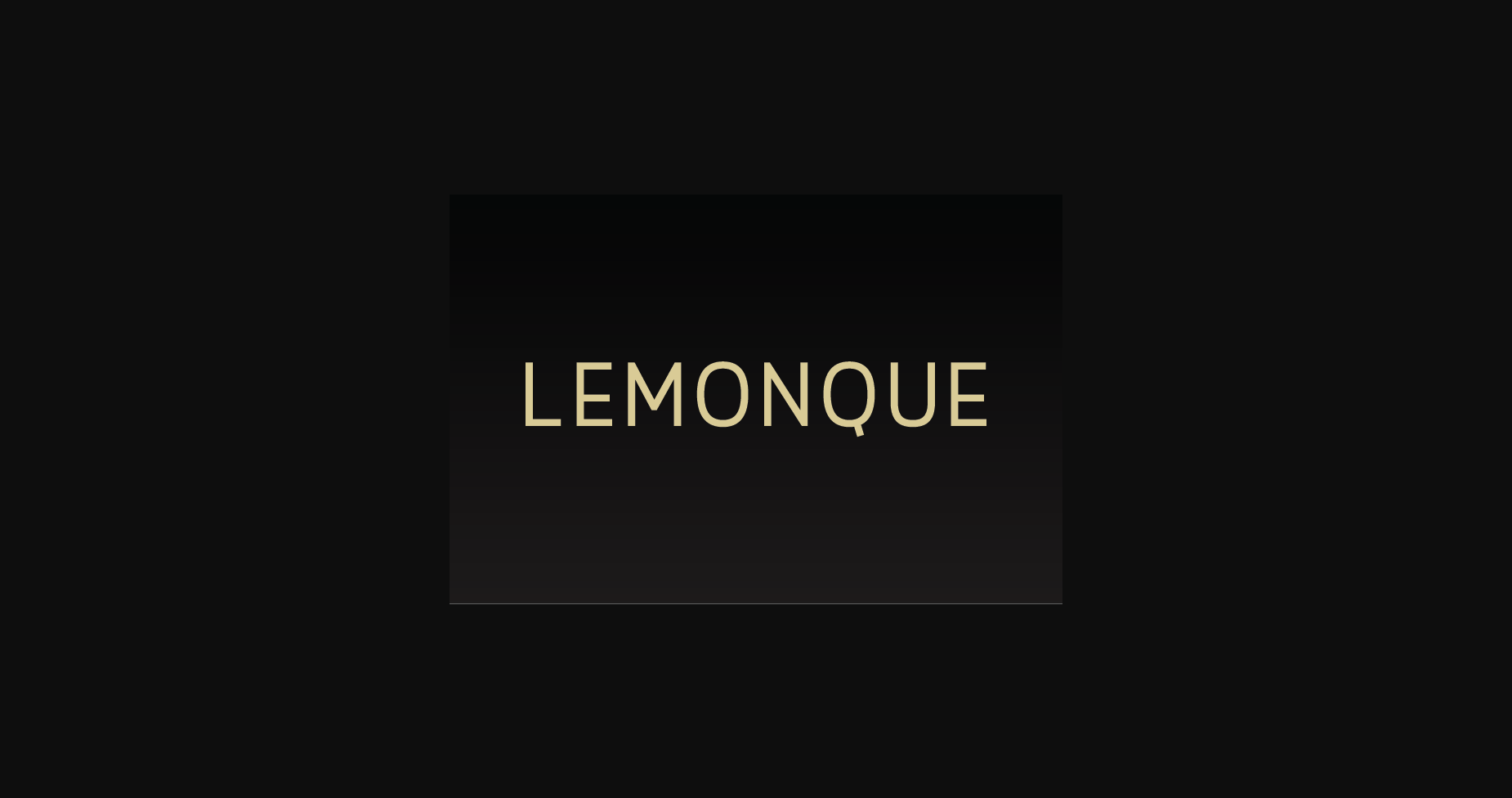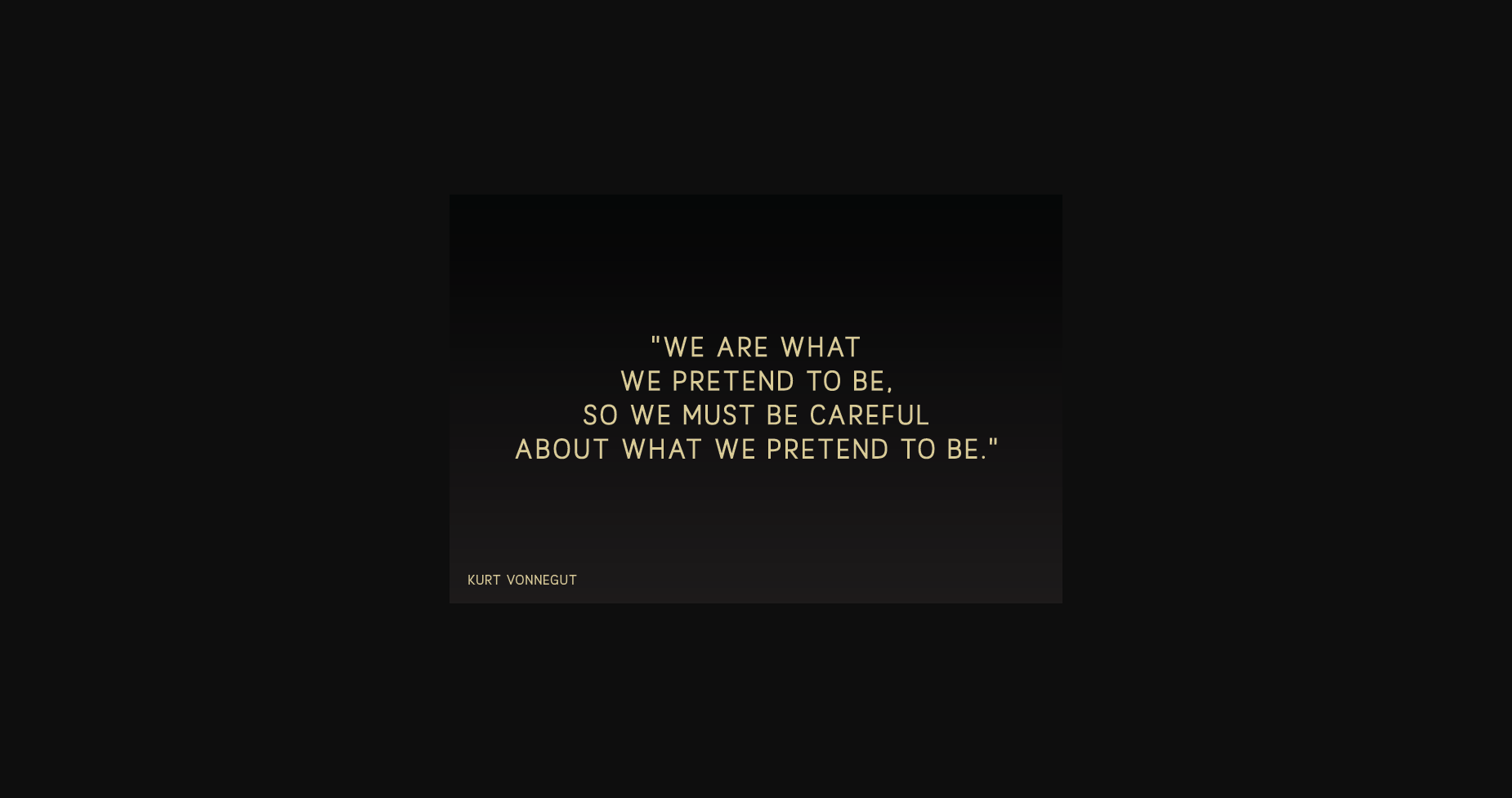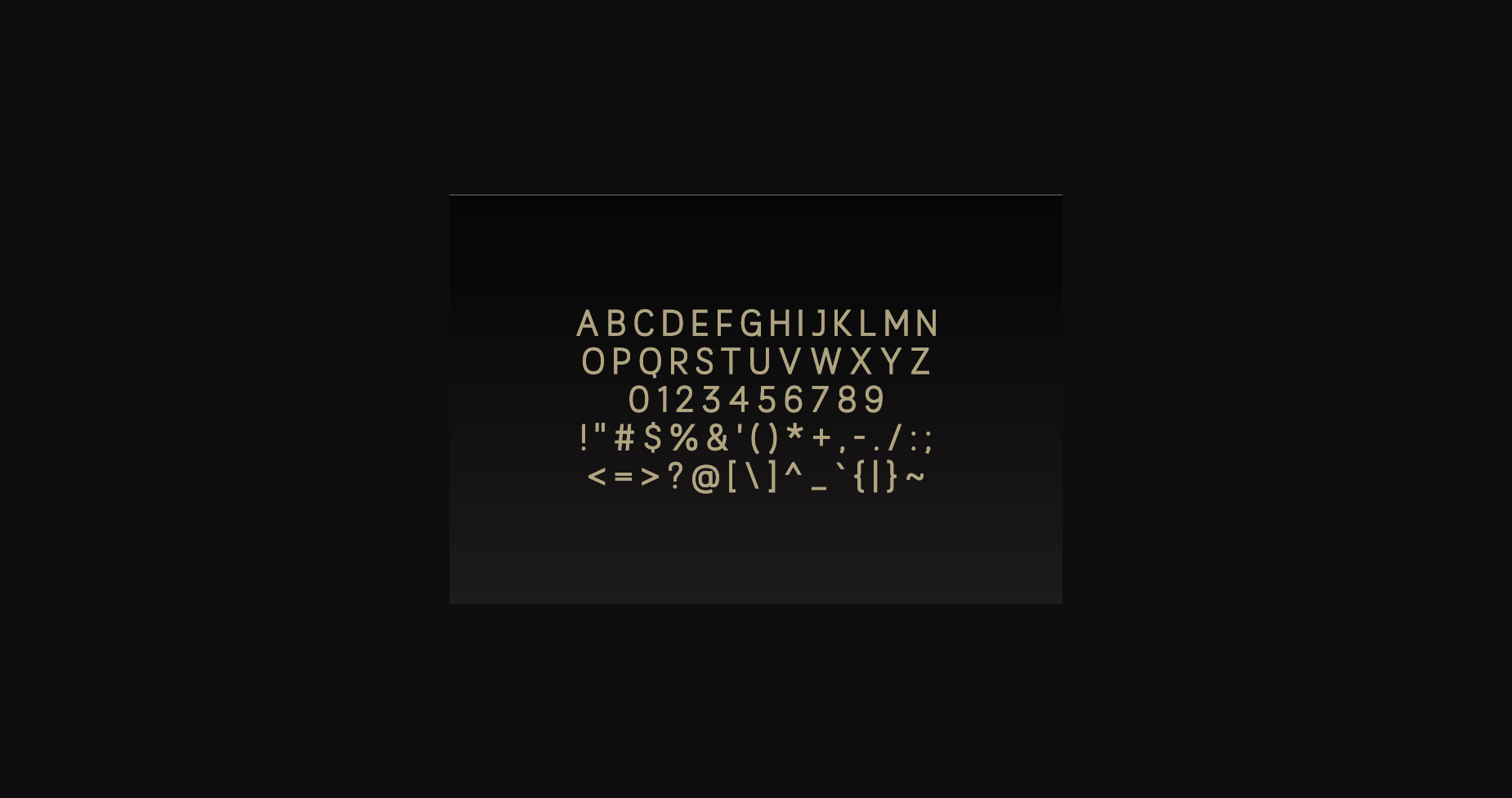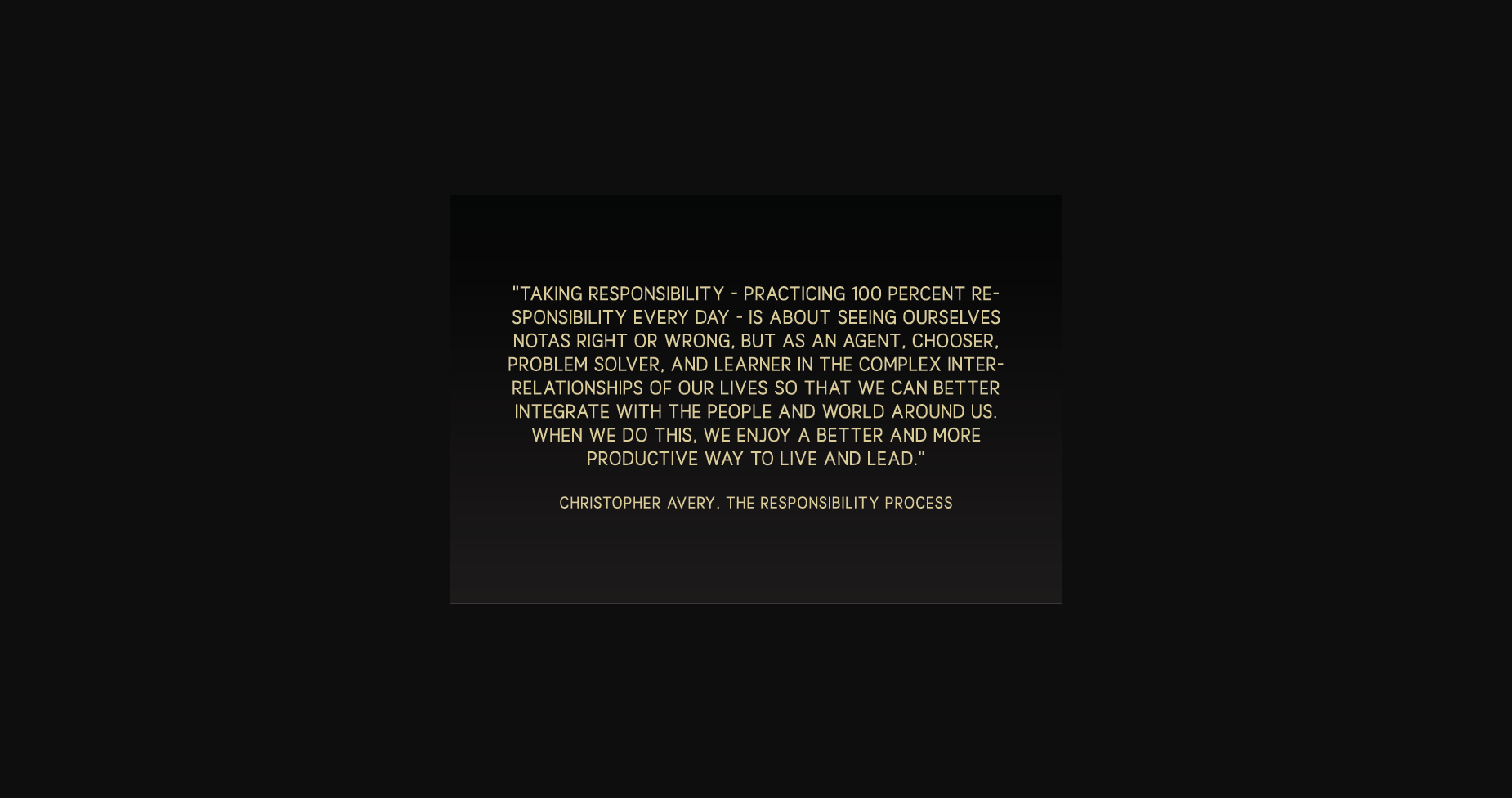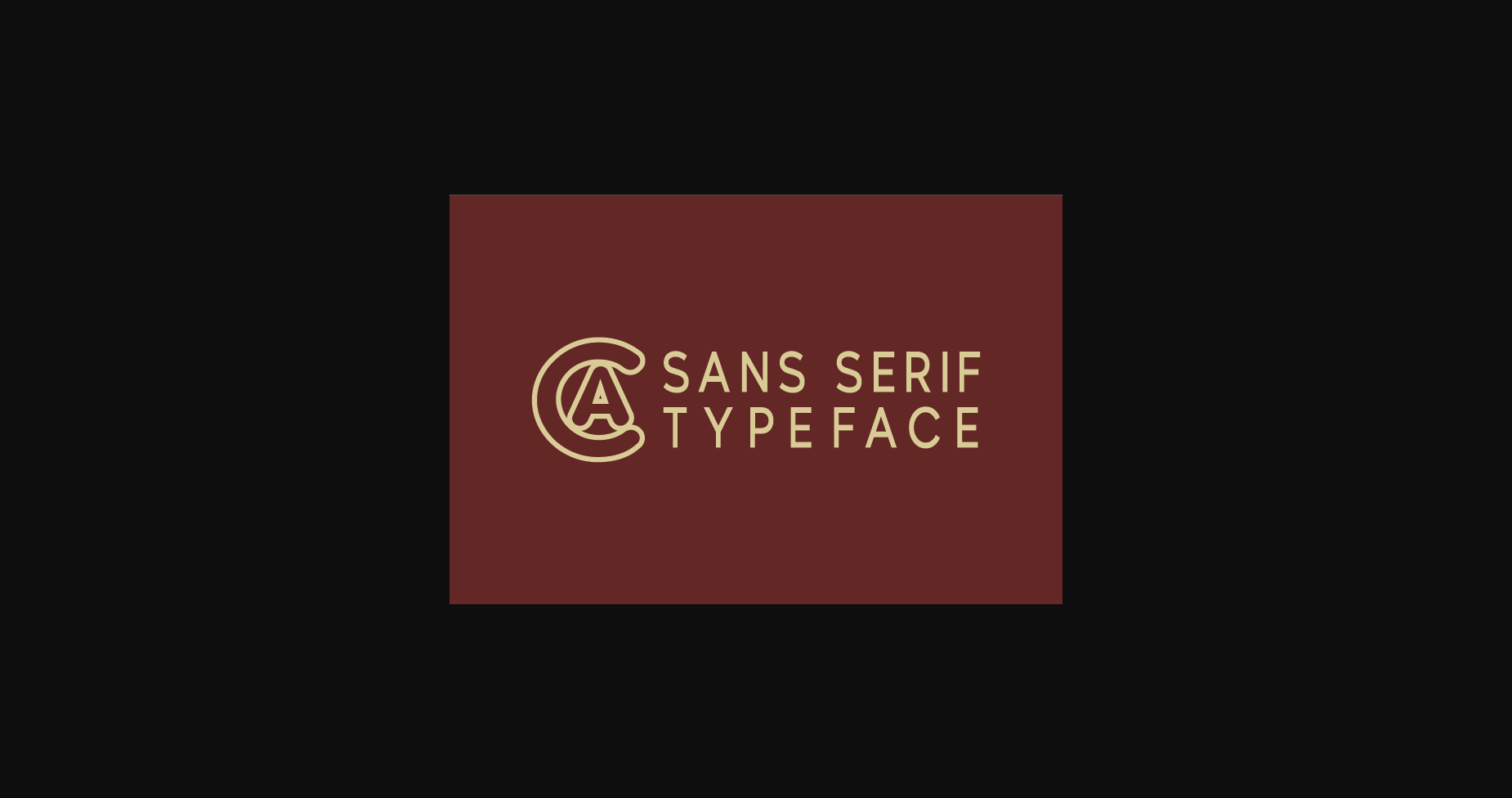
About Lemonque Font
Lemonque is a clean, simple and modern sans serif font. It is suitable for logotype, headline font, in corporate identity, brand identity, apparel industry, poster, music, movie, game, magazine, book, comic, cartoon, YouTube, Instagram, website, or any of your creative design projects.